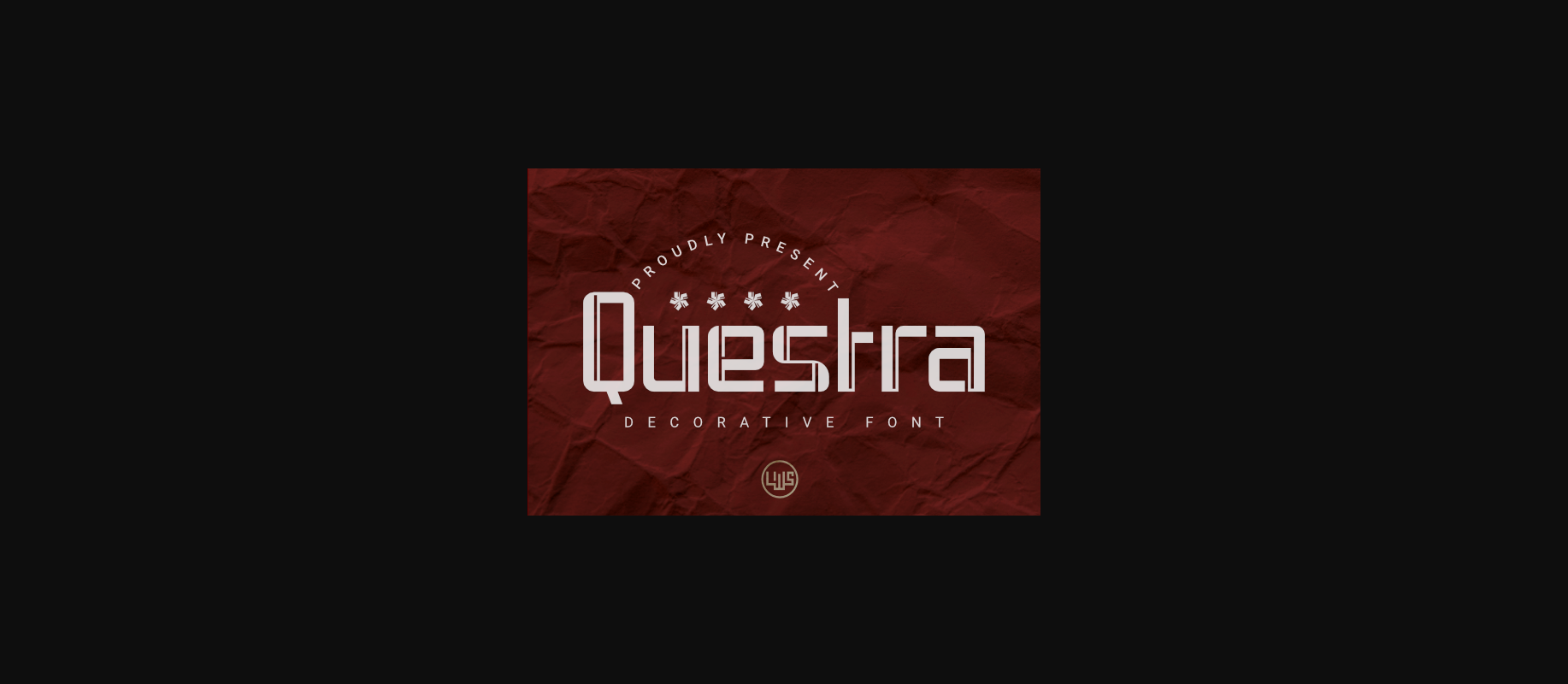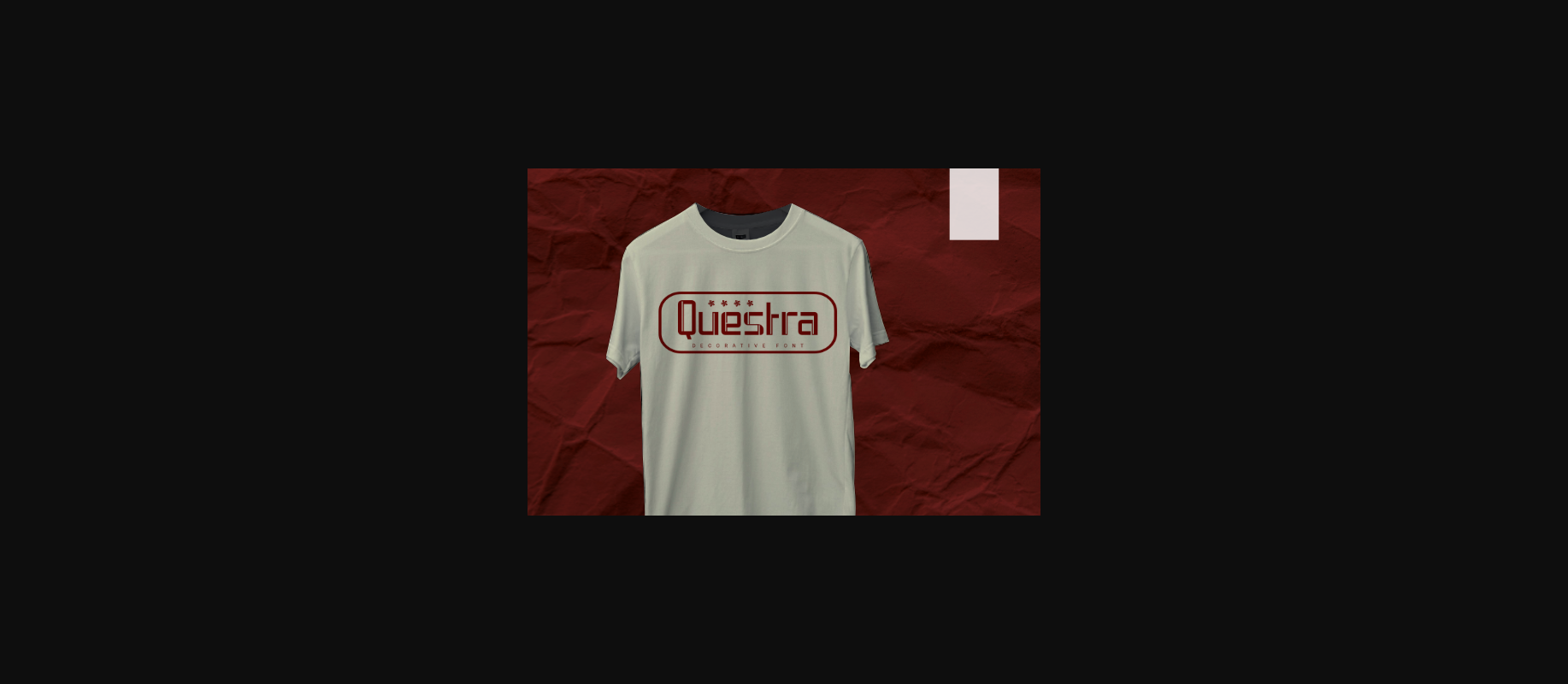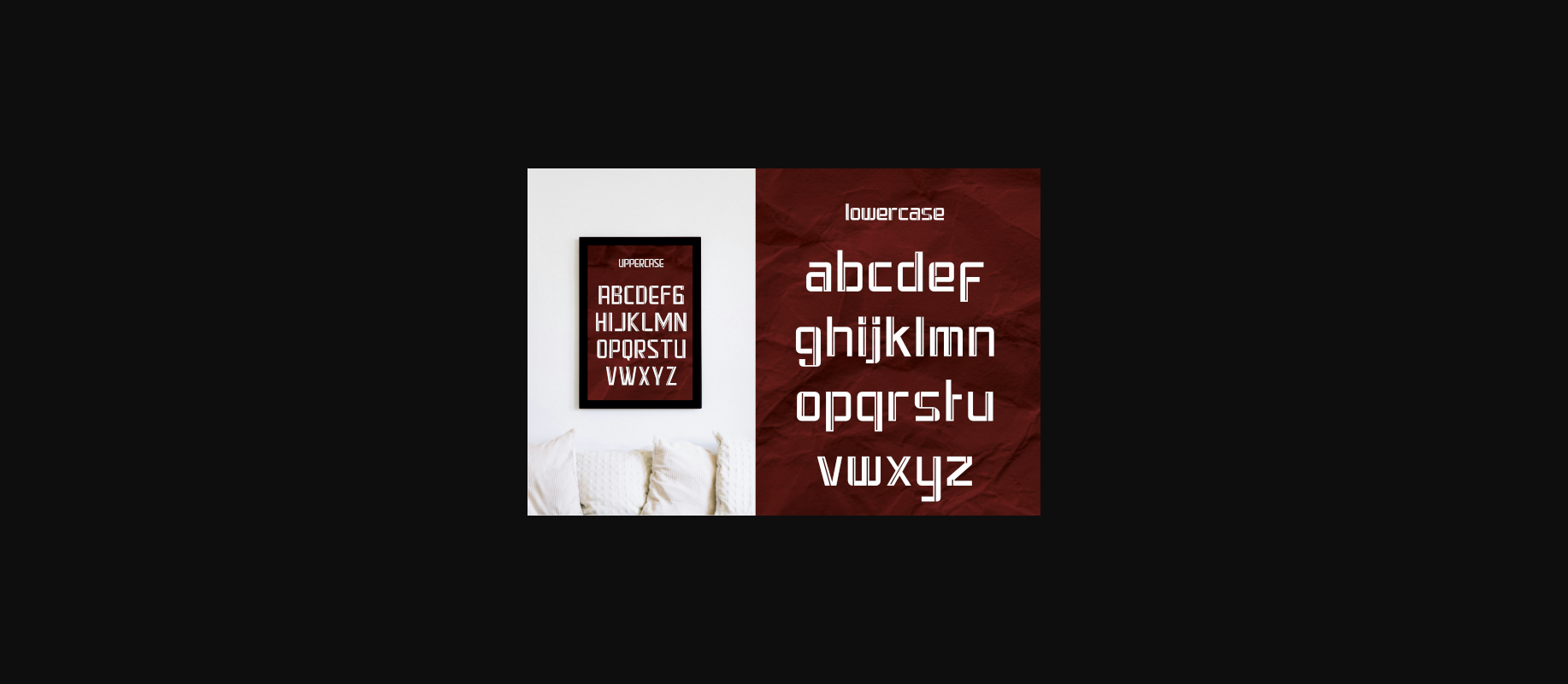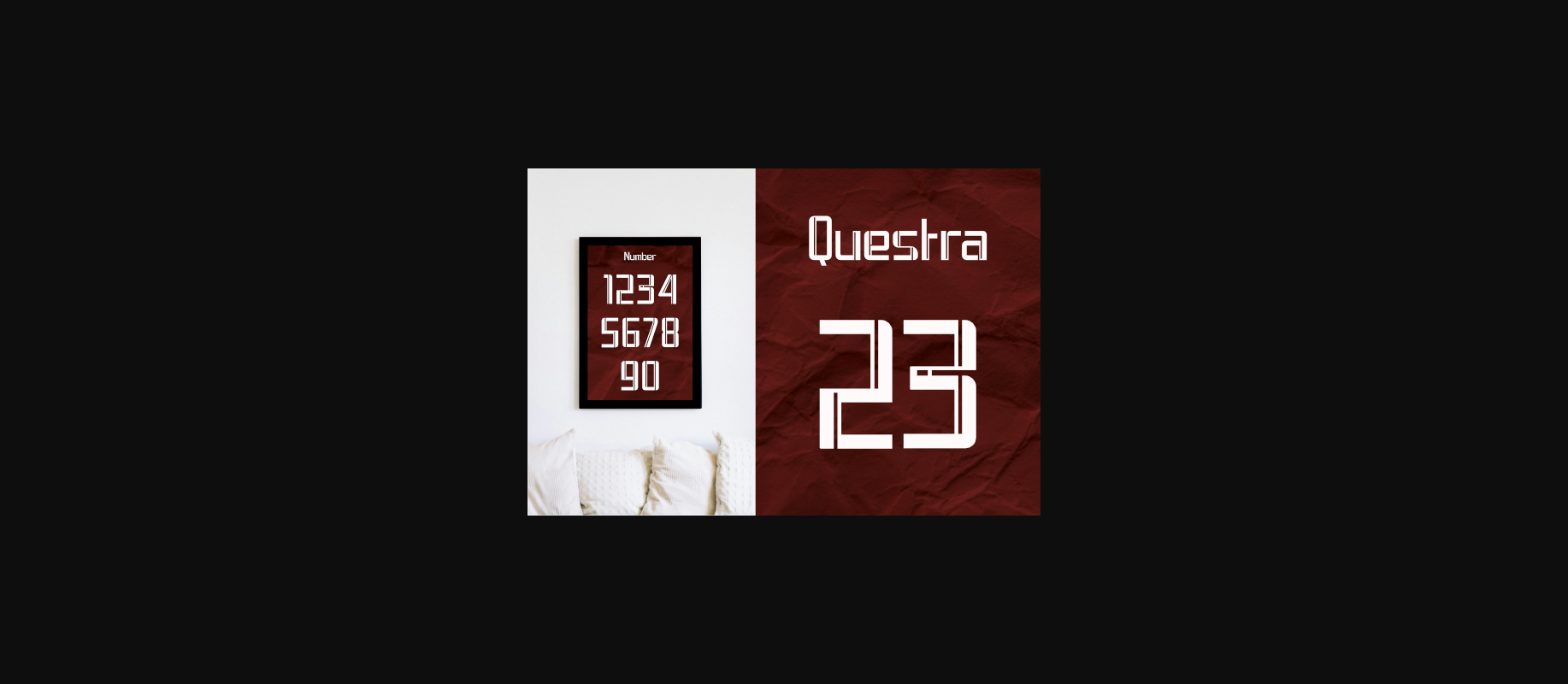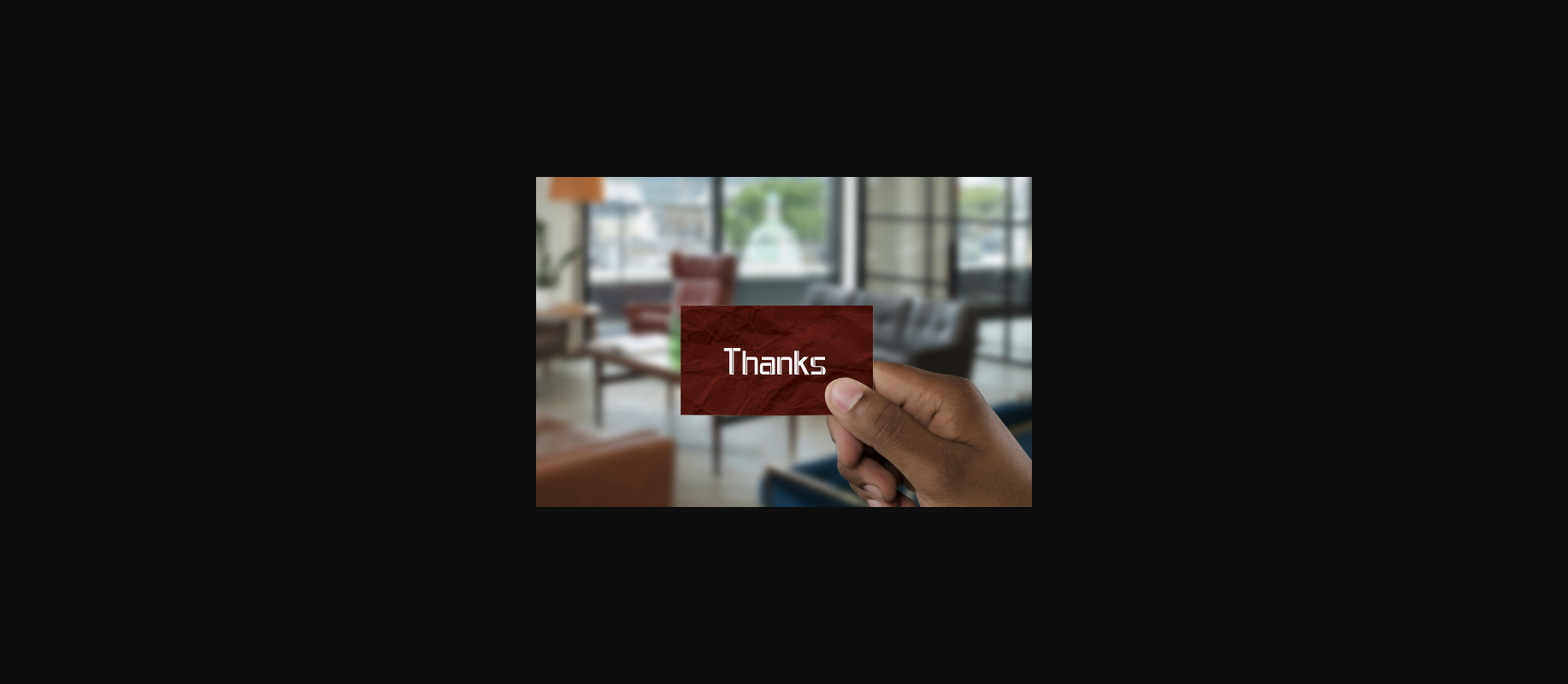
Questra Font
About Questra Font
Discover Questra, a paragon of contemporary athletic chic in the realm of fonts. Infuse your sport-themed projects with its distinctive and rich qualities. Exceptionally versatile, Questra bestows a dose of stylish uniqueness across diverse design explorations, aligning with your innovative demands in the most refined manner. With its sharp contours and vibrant persona, Questra empowers your creative flair, lending your designs a significantly unique advantage. Propel your design aesthetic to new heights with Questra, the harmonious blend of modernity and persona.